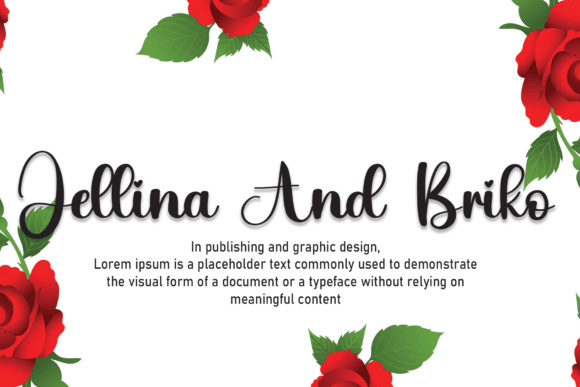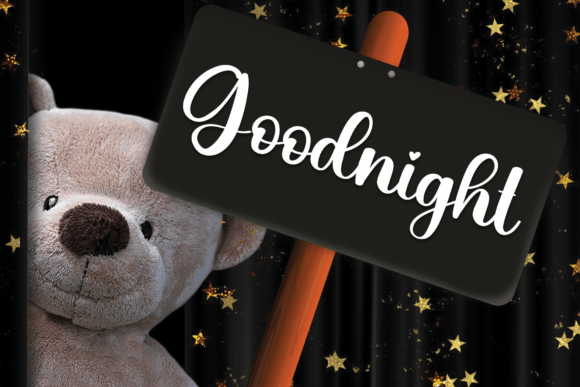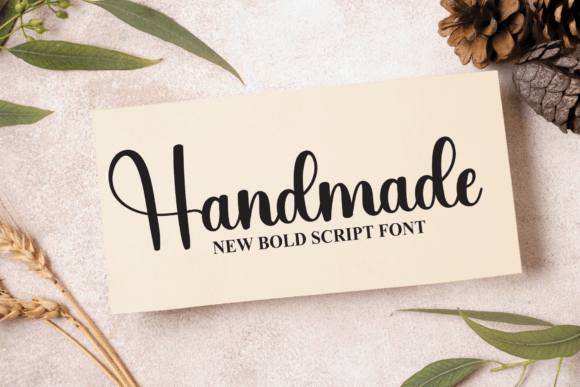
Introduction to Line Font
Have you ever stared at a blank sheet of paper, waiting for that perfect idea to strike? For designers, those moments of creative spark can be a treasure trove of inspiration. And when that idea hits, you want to bring it to life with the perfect font. That’s where Line Font comes in – a stylish and versatile font that’s perfect for any creative project.
Whether you’re working on a wedding invitation, social media post, or product packaging, Line Font offers a high-quality design resource that’s sure to elevate your work. Its unique, handwritten style is free to download and can be customized to fit any design need, from a transparent background to a bold, eye-catching logo.
Key Features of Line Font
- Designed with precision and attention to detail, making it an ideal choice for designers working on high-resolution projects.
- Line Font is a versatile design resource that can be used for a wide range of creative projects, from logos and icons to graphics and typography.
Honest Review: Line Font
As a designer, I’m always on the lookout for high-quality design resources that can elevate my creative projects. Recently, I stumbled upon Line Font, and I have to say, it’s been a game-changer for me. ✨
One of the standout features of Line Font is its versatility. The font comes in a range of styles and weights, making it perfect for a variety of design projects. I’ve used it for everything from logos to social media graphics, and it always looks great. The font is also completely free to download, which is a major bonus for designers on a budget.
Here are some of the key features that I love about Line Font:
- High-quality design with a transparent background
- Comes in a range of styles and weights
- Perfect for creative projects, including logos, social media graphics, and more
Overall, I’m thoroughly impressed with Line Font. It’s a high-quality design resource that’s perfect for designers of all levels. Whether you’re working on a personal project or a client design, Line Font is definitely worth checking out.
Here are some tips for getting the most out of Line Font: use it for titles, headings, and body text; experiment with different font sizes and styles; and pair it with a transparent background for a clean and modern look. Some common use cases include creating social media graphics, designing posters, and making presentations.